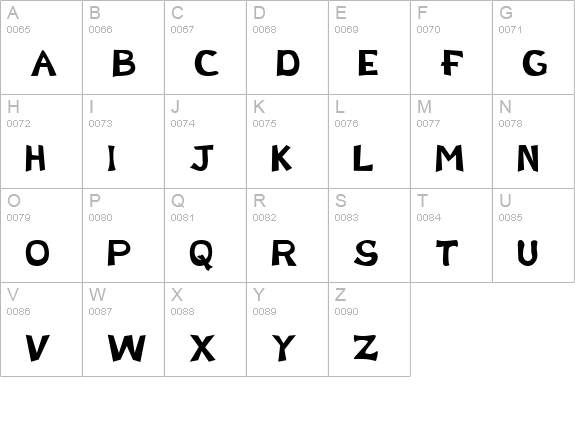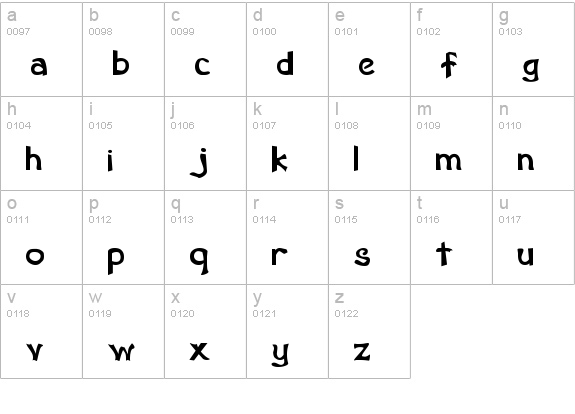
Genius Font Details
Introducing Genius font, a stunning typeface that exudes elegance and sophistication. With its sleek lines and modern aesthetic, Genius is the perfect choice for any design project seeking a touch of refinement. Whether you're creating a logo, website, or print materials, this font will elevate your work to the next level. The best part? Genius font is completely free to download at FontsMarket.com. Take advantage of this incredible opportunity to enhance your design projects with a font that exudes creativity and style. Don't miss out on the chance to elevate your work with the timeless beauty of Genius font. Download it today and let your creativity shine!